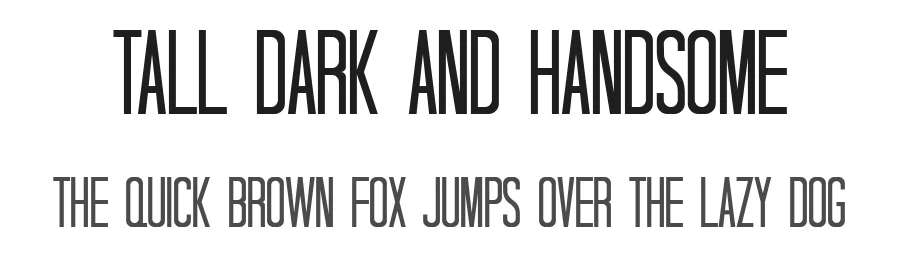
About Shocking Headline Font
Shocking Headline Font is a versatile sans-serif font that works for both headings and body text. Pair it with a contrasting serif or slab serif font to add visual interest and a clear distinction between titles and body copy.